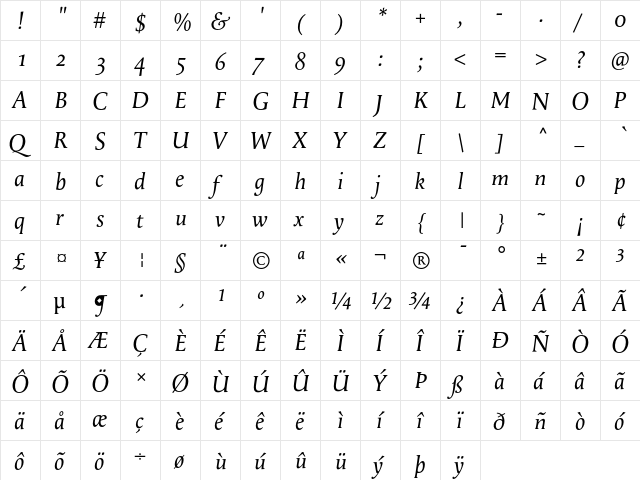
Apolline Italic
Design Context for Apolline Typeface
Apolline takes a measured approach to typography — its balanced proportions and neutral character make it a reliable workhorse for both digital and print work. The dynamic lean of this cut emphasises speed and emphasis in any layout.
Pro Tip: Try Apolline for annotation and caption copy alongside an upright companion — the contrast in angle creates a dynamic but ordered typographic system.